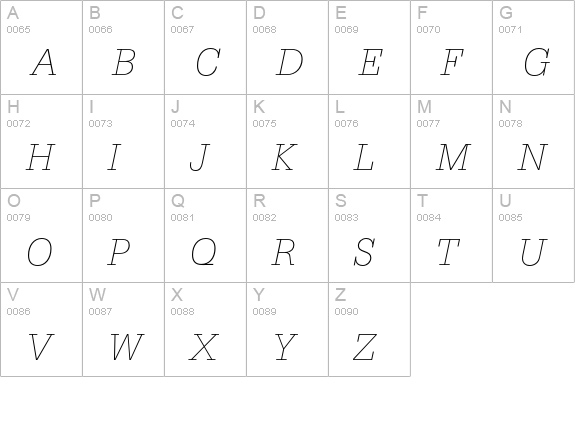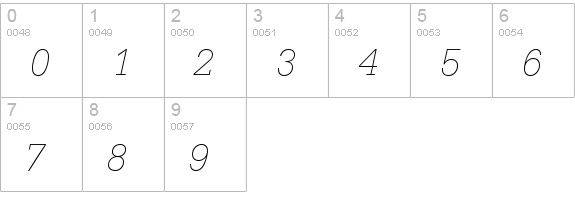
Serifa Thin Italic Font Details
Serifa Thin Italic is a delicate, low-contrast, italic variant in the Serifa typeface family \xE2\x80\x94 well suited to fashion editorial, minimal branding, and high-contrast display.
Serifa Thin Italic font is a sleek and elegant typeface that exudes sophistication and refinement. Its thin and slanted letterforms create a sense of movement and grace, making it perfect for projects that require a touch of elegance. Designed with meticulous attention to detail, Serifa Thin Italic font offers a delicate balance between legibility and style. The slight slant of the italic version adds a subtle touch of dynamism, making it a versatile choice for both headings and body text. With its clean lines and graceful curves, this font is ideal for a wide range of design applications, including branding, editorial design, packaging, and more. It effortlessly captures attention while maintaining a sense of subtlety and class. What makes Serifa Thin Italic font even more appealing is that it is free to use. This means that anyone can access and download it without any cost. Whether you are a professional designer or someone looking to add a touch of sophistication to your personal projects, this font is a valuable asset. To download Serifa Thin Italic font for free, simply visit FontsMarket.com. This reliable platform offers a vast collection of high-quality fonts, and Serifa Thin Italic font is just one of the many gems you can find. Take advantage of this opportunity to enhance your designs and bring a refined touch to your typographic creations.